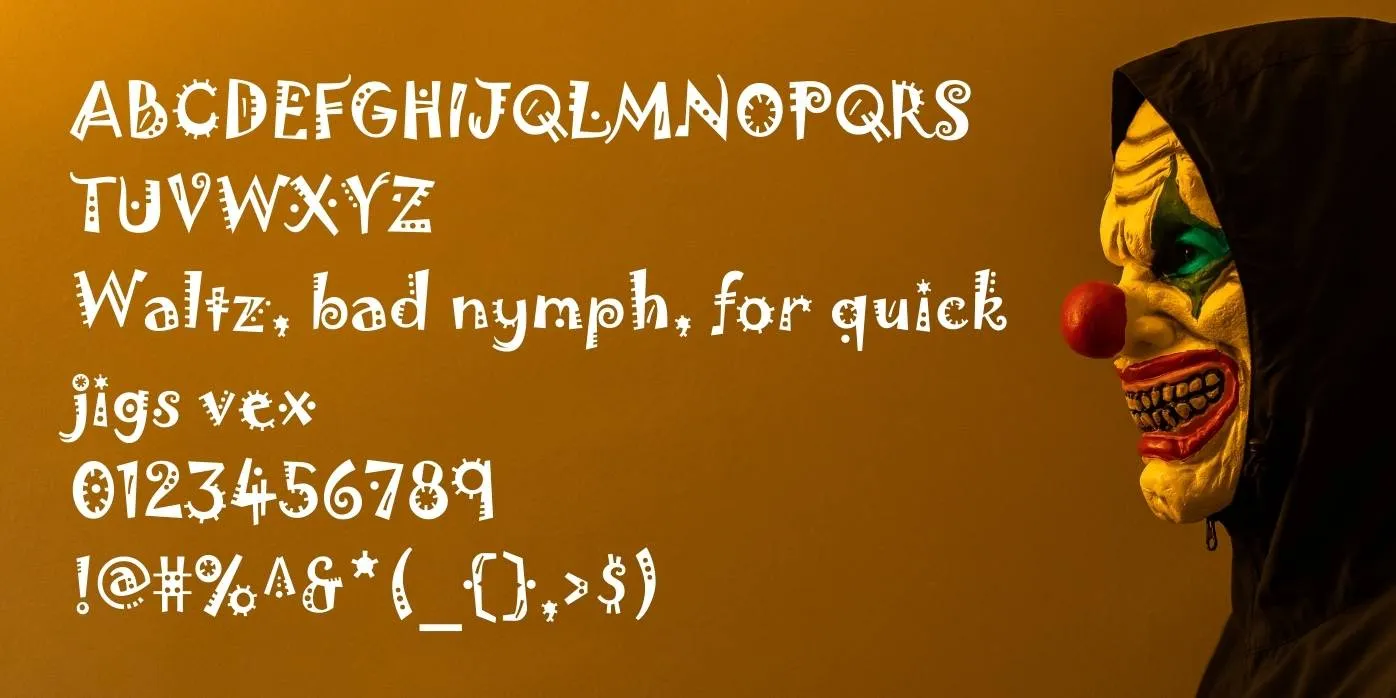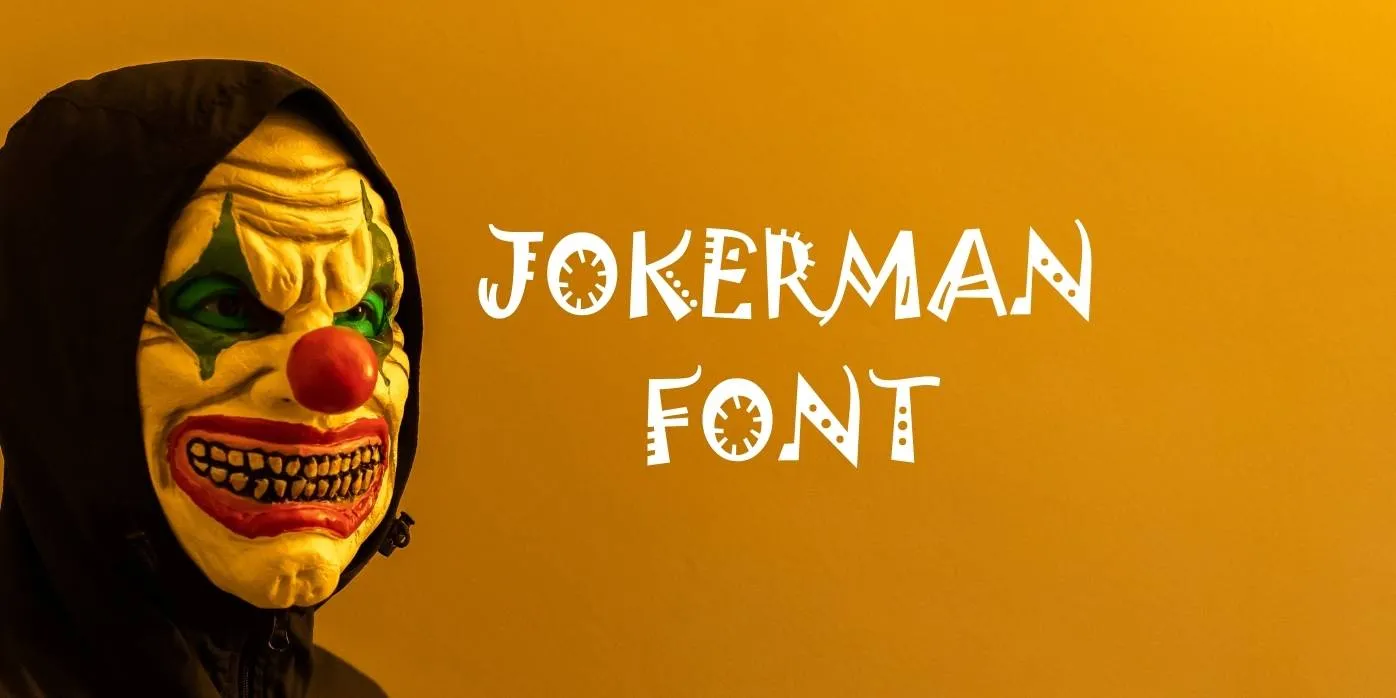
Jokerman Font
Jokerman font is one of the cool and pretty strange typefaces that the designer must have made with great difficulty. That belongs to a Display typeface family and the designer of this typeface is Andrew Smith. The font has TTF features and is free for personal use only. Its character style is pretty cooked and each character provides a different look.
The font provides many languages and accents for international users and can fit on every display of comic designs project. Jokerman font has Uppercase letters, lowercase letters, Numbers and Numerals, and crazy symbols also. This Truetype feature font provides a pretty silly performance to any design. It has Regular weights only and is ready to download through.